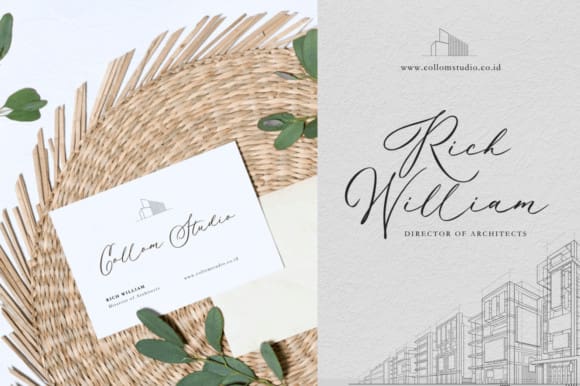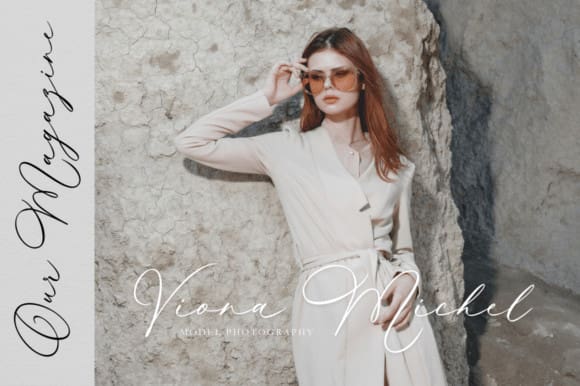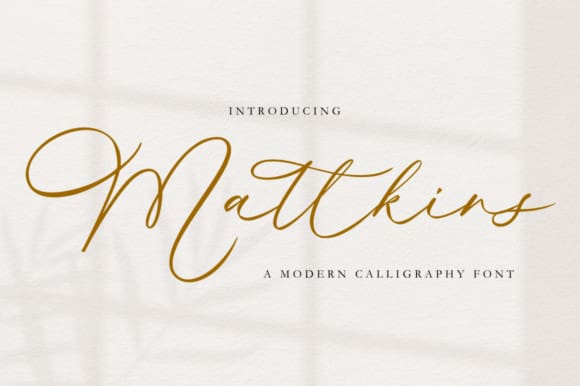
Mattkins Script Font
Mattkins Script Font, your new go-to for beautiful calligraphy vibes! With its elegant swirls and graceful curves, this font brings the artistry of traditional calligraphy to your fingertips. Perfect for adding a touch of sophistication and charm to your projects, whether it’s wedding invitations, branding, or creating elegant packaging. “Mattkins” adds that timeless elegance and friendly flair to your designs, making them stand out with style and grace.